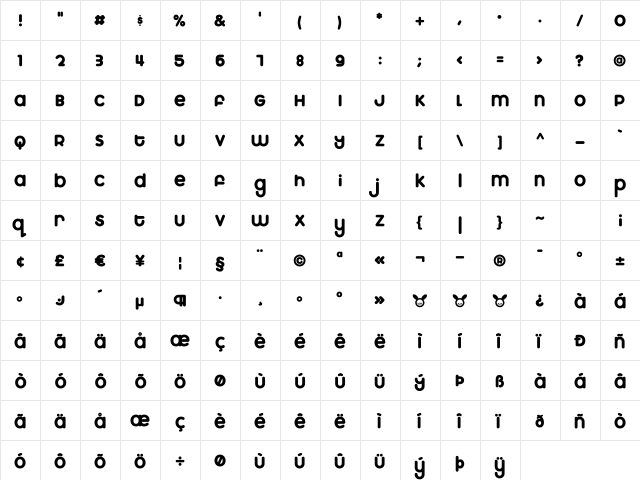
MarshmallowSuper Puff Regular
Design Context for MarshmallowSuper Puff Typeface
MarshmallowSuper Puff takes a measured approach to typography — its balanced proportions and neutral character make it a reliable workhorse for both digital and print work.